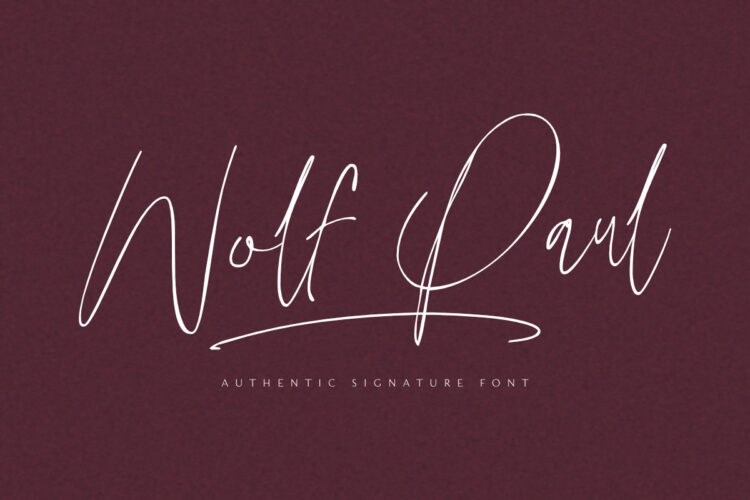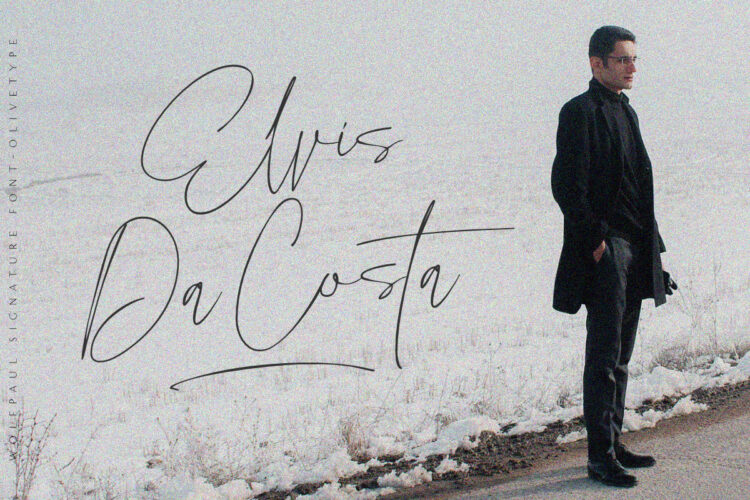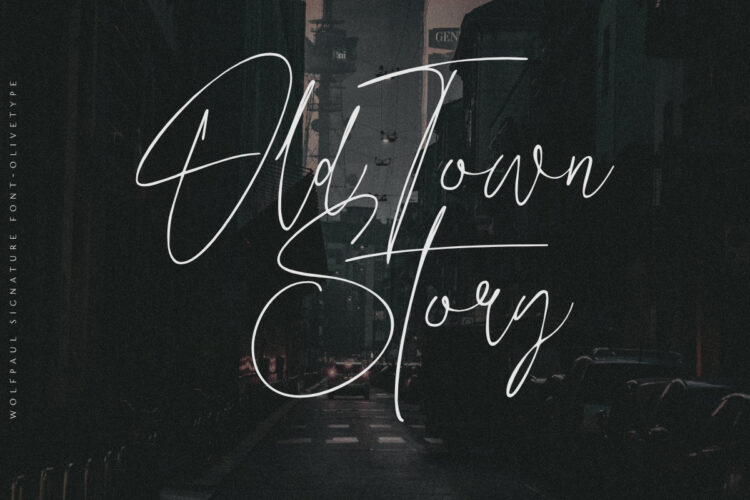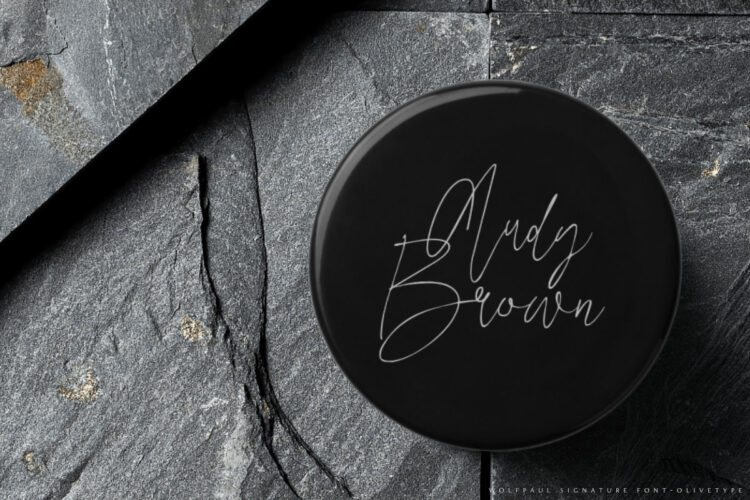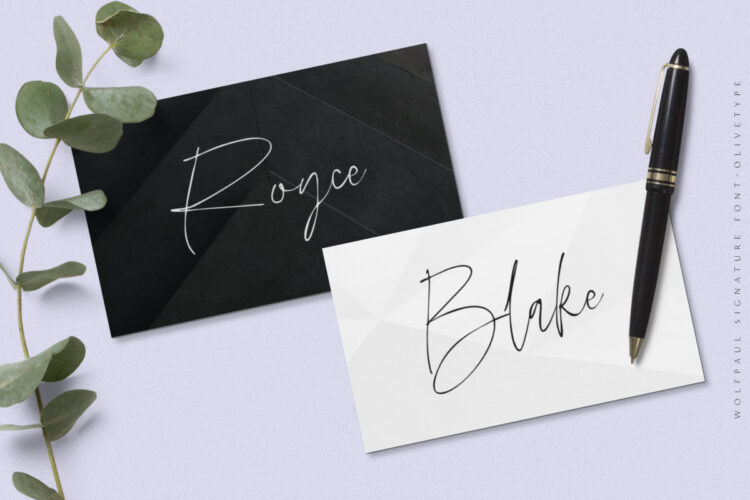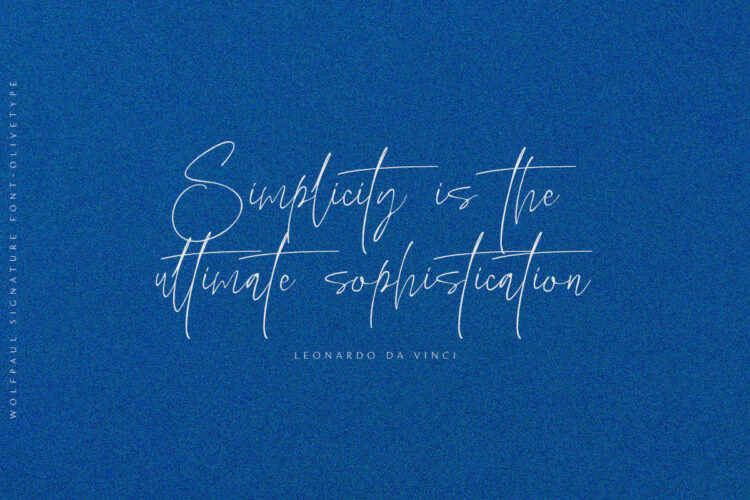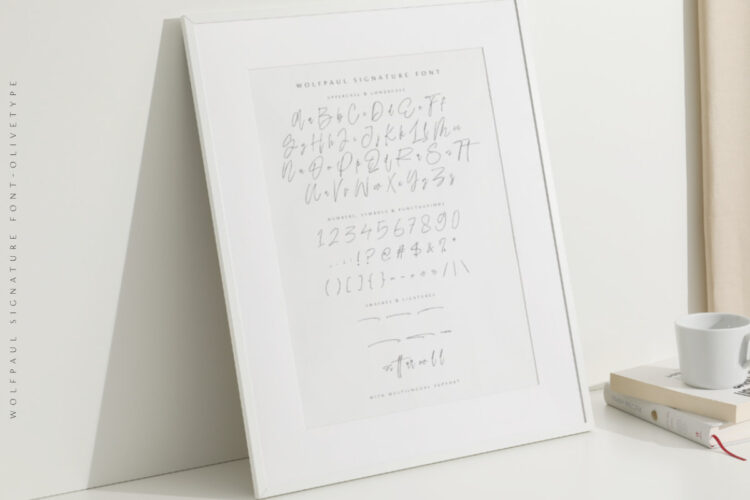
Wolf Paul is an elegant signature script font. This versatile script font has a wide spectrum of applications ranging from greeting cards, product branding to headlines and more.
- Basic Latin A-Z & a-z
- Ligatures & swashes